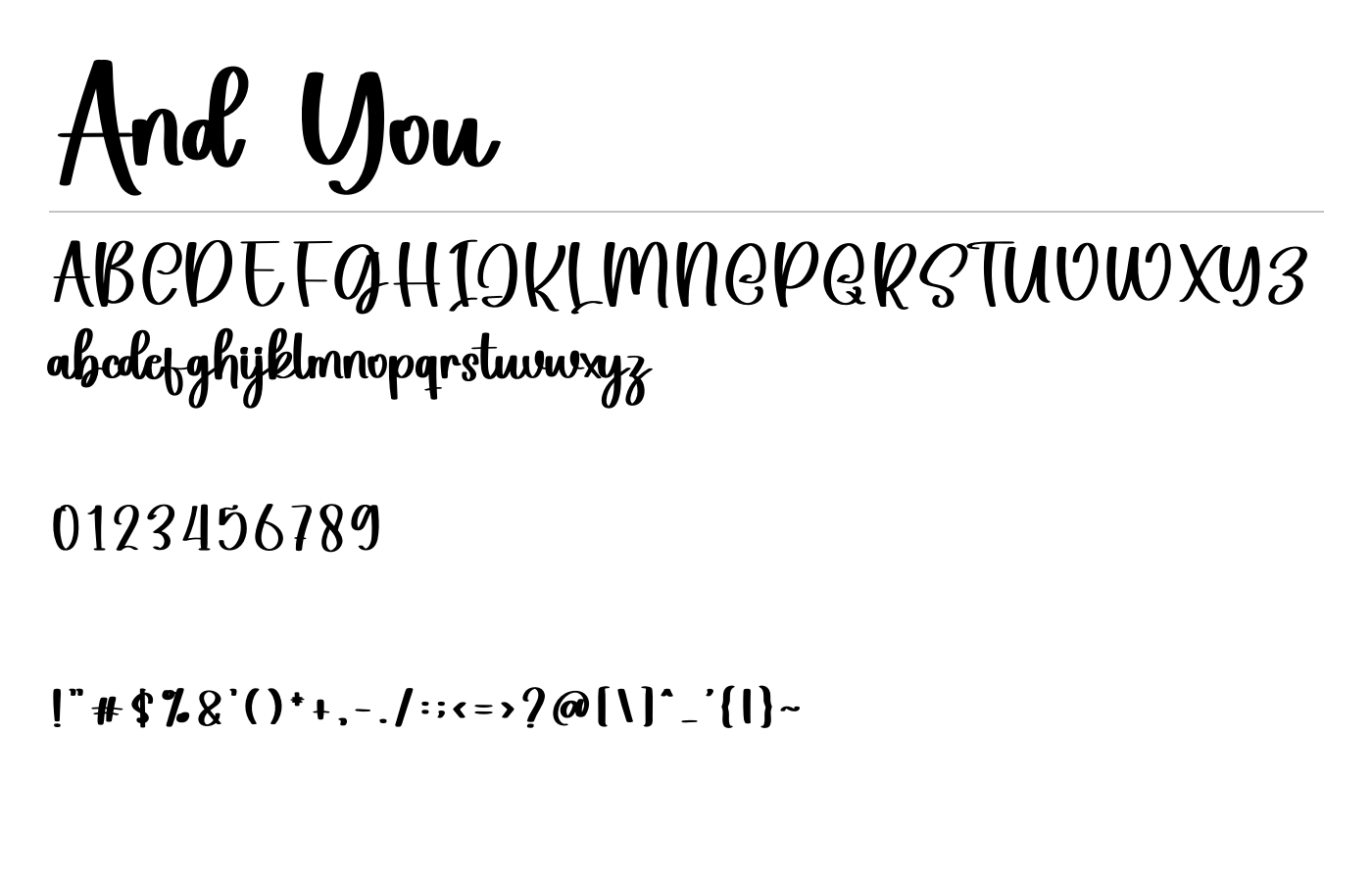
And You is a playful and informal script font with a lively, hand-drawn feel. Its rounded, slightly uneven strokes and unique letter shapes give it a personal and friendly character, making it ideal for casual branding, invitations, and creative projects where warmth and approachability are key. This font works best for headlines, logos, and packaging that want to convey creativity and charm.
And You Font
About And You Font